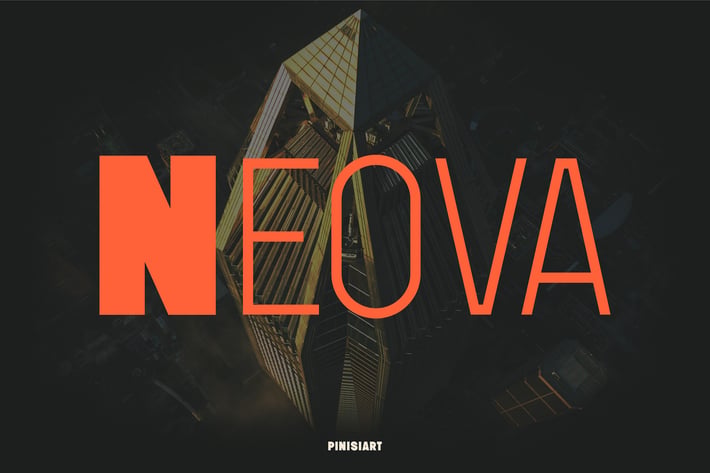
Modern Corporate Font - Neova
NEOVA – The Future of Precision and Design
Step into the next era of typography with NEOVA, a futuristic, structured typeface designed for visionary brands, technology firms, and architectural identities. With its geometric precision and bold yet minimal aesthetic, NEOVA is built for high-tech branding, modern corporate identities, and cutting-edge UI design.
With sharp angles and structured letterforms, NEOVA delivers a powerful yet refined statement, making it perfect for corporate branding, architectural layouts, and digital experiences. Whether you’re designing for innovative startups, futuristic events, or luxury editorial layouts, this font ensures your message is delivered with clarity and impact.
Why Choose NEOVA?
Geometric Precision – Clean, structured letterforms with a sharp, futuristic appeal.
Bold Yet Minimalist – A perfect blend of strength and sophistication.
Versatile for Corporate & Tech Branding – Ideal for high-end businesses and forward-thinking industries.
Optimized for Digital & Print – Works seamlessly across web, UI, signage, and editorial layouts.
Sleek & Professional – A cutting-edge font that exudes modern elegance.
NEOVA is where modern design meets futuristic vision.